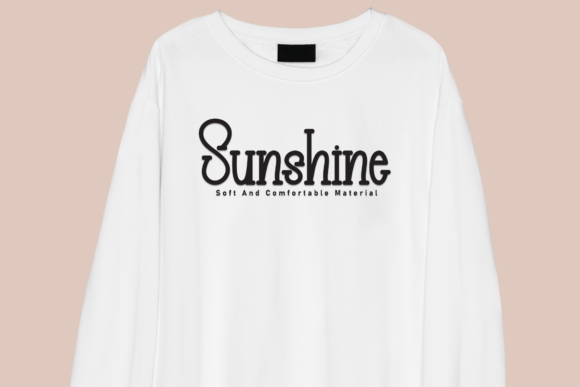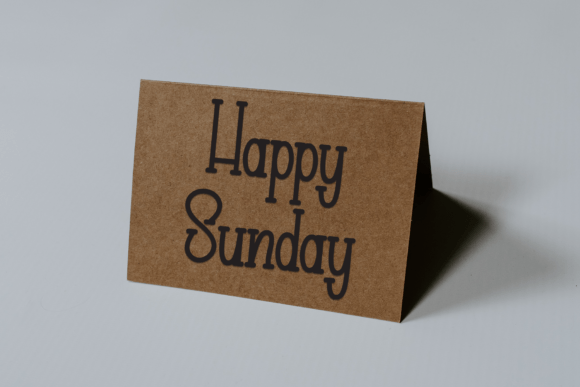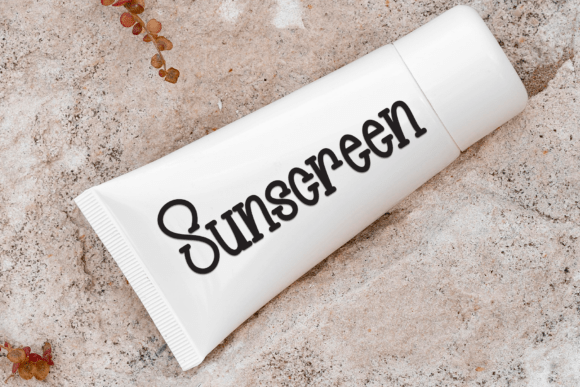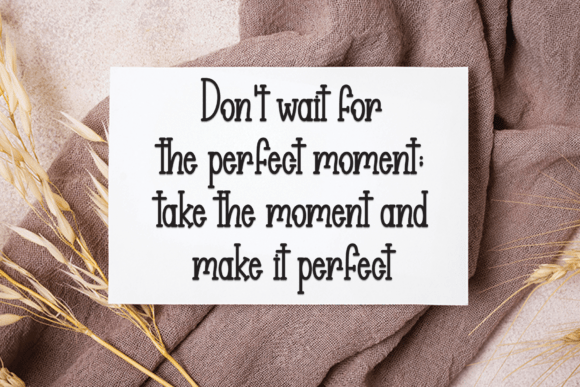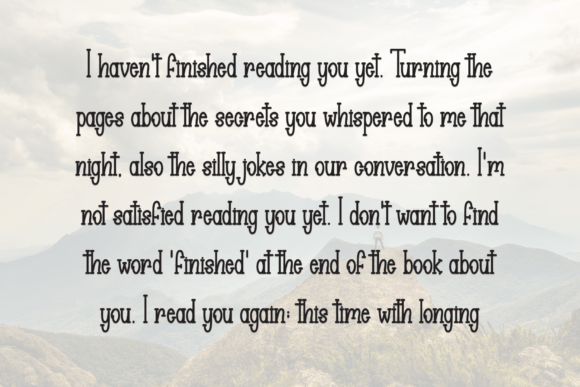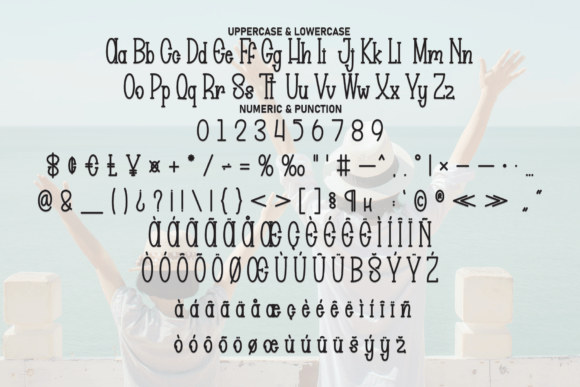
Introduction to Season Holiday Font Font
Fonts play a crucial role in design, and the Season Holiday Font font is a typeface that brings both character and versatility to any project. Whether you’re working on a branding project, a website, or a print design, the Season Holiday Font font offers a unique style that can elevate your work.
Immerse yourself in the charm of a handwritten display font oozing with warmth and friendliness.
With its cheerful and lively traits, this font is the perfect choice for crafting elegant wedding invites, heartfelt cards, or adding an element of joy to any design project It delicately blends simplicity with elegance, infusing a dash of delight into your creative journeys.
Key Features of Season Holiday Font Font
Why Choose Season Holiday Font Font?
The Season Holiday Font font is more than just a typeface – it’s a design tool that helps you communicate your message with style and clarity. Its unique character set and versatile design make it suitable for a wide range of applications, from elegant invitations to bold headlines.
With its carefully crafted letterforms and balanced proportions, the Season Holiday Font font ensures readability and visual appeal across all mediums.
What makes Season Holiday Font font special?
The Season Holiday Font font stands out with its unique design, exceptional readability, and versatility across various design applications.